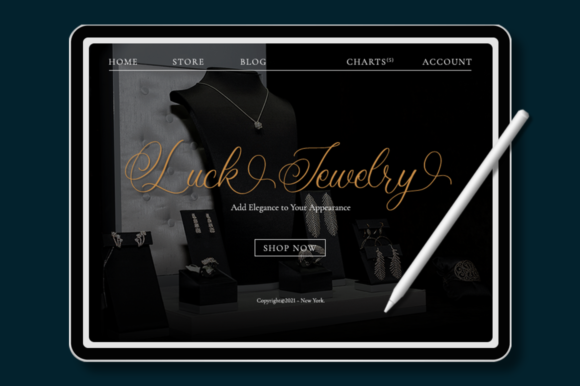
The Top Amanda Calligraphy Font
Amanda Calligraphy Font
Amanda Calligraphy is a ravishing handwritten font, masterfully designed to become a true favorite. It maintains its classy calligraphic influences while feeling contemporary and fresh. Amanda Calligraphy is PUA encoded which means you can access all glyphs and swashes with ease!